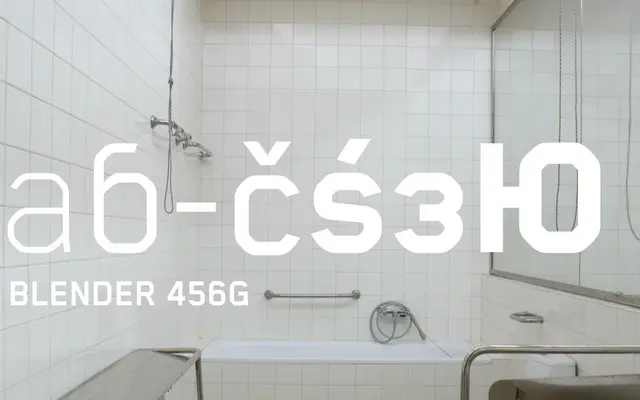
Blender
Binnenland · Nik Thoenen · 2003
A modular geometric sans built on a strict construction grid, synthesised from two font sketches including a CAD type source and a typeface by Norm.
Designed by Nik Thoenen in 2003 and substantially revised in 2017, Blender assembles letterforms from cut segments of hybrid source material, rearranged over a geometric grid. The result sits somewhere between technical rigour and restrained softness, with five weights from Thin to Strong each accompanied by italics. Language coverage extends to Latin Extended, Cyrillic and Greek, and OpenType features include tabular figures, fractions, superiors and inferiors.
Blender is built on a strict construction grid using modular, segmented letterforms synthesised from geometric and CAD-derived sources, placing it firmly in the geometric sans tradition with a technical edge.